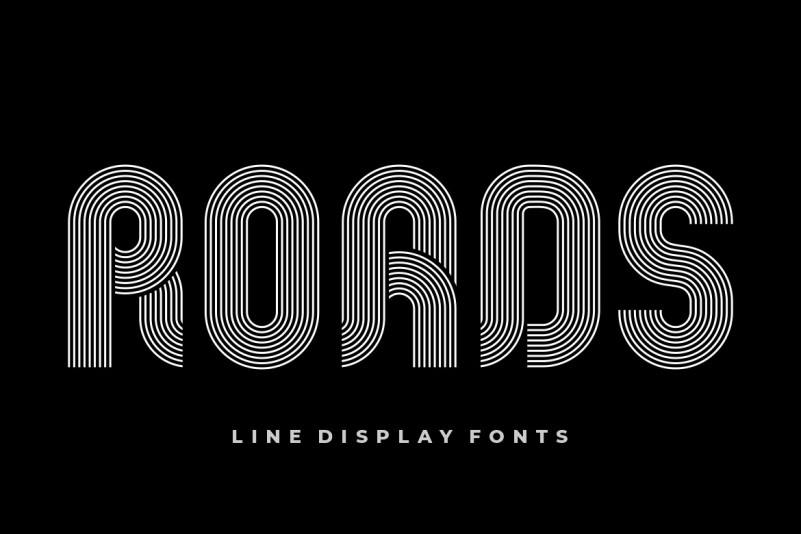
Roads Font
Roads Display Font, This is the ideal font for all your design requirements, such as branding, product packaging, or even just to add a touch of flair to your editorial work. This fine font features a contemporary design with a unique shape that will add elegance to any design. Incorporate Groovy Fonts into your designs right away!